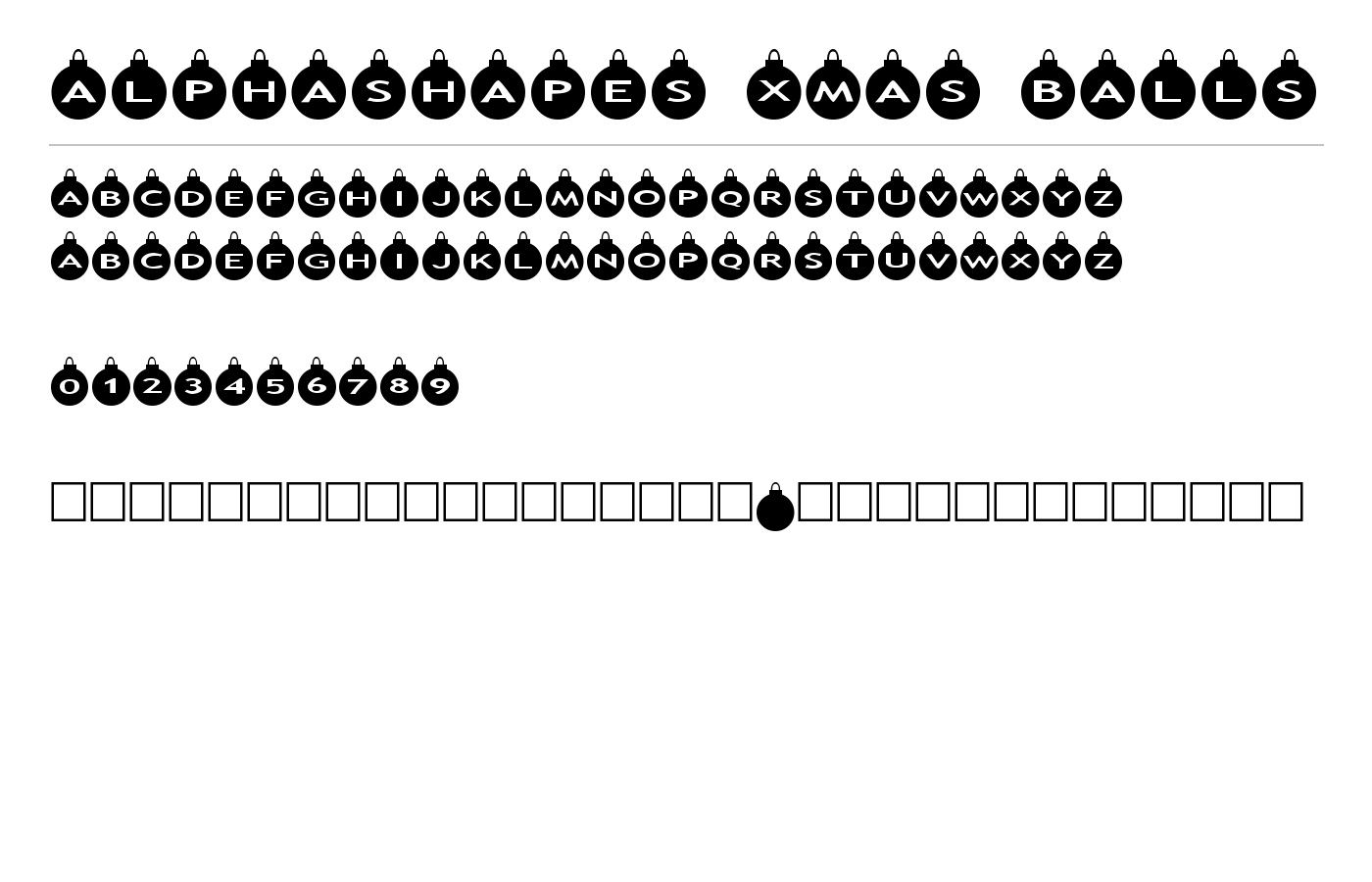
AlphaShapes xmas balls is a playful, decorative display font featuring letters and numbers inside stylized Christmas ornament shapes. Its bold, rounded glyphs and festive design make it perfect for holiday-themed projects, adding a cheerful and seasonal touch to invitations, posters, and seasonal branding. This font captures the joyful spirit of Christmas in a fun, eye-catching way ideal for festive graphics and celebrations.
AlphaShapes xmas balls Font
About AlphaShapes xmas balls Font